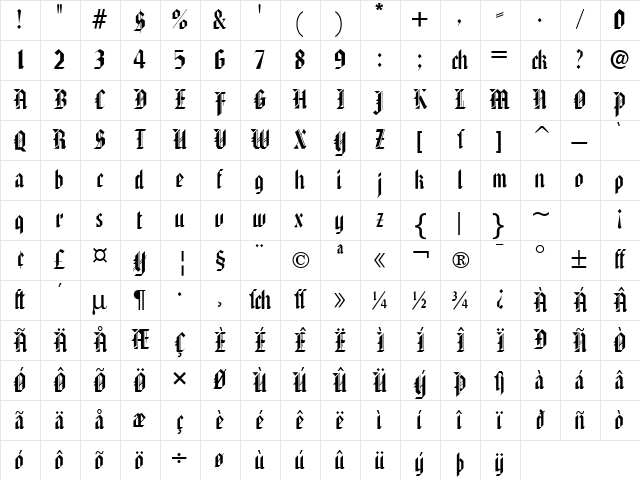
American Text Regular
American Text Family
American Text Regular
Design Context for American Text
American Text is a composed and adaptable typeface that performs quietly and consistently across a wide range of design contexts.